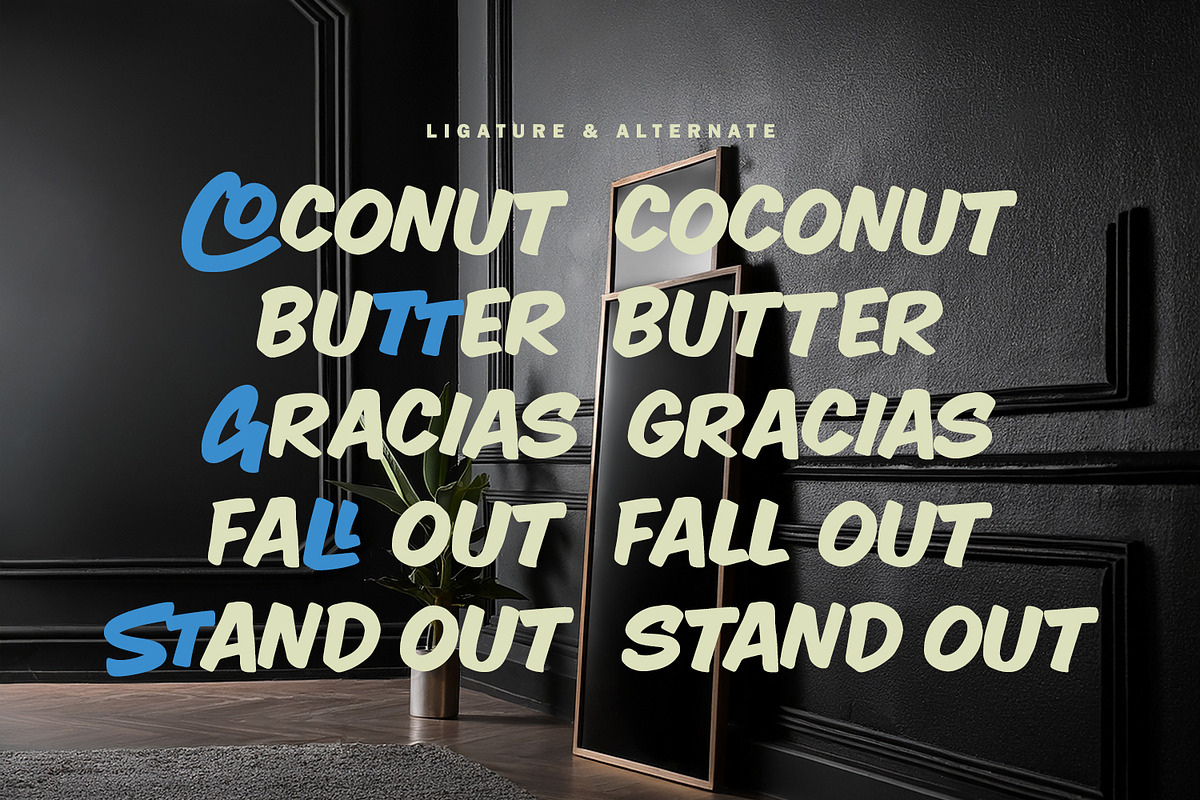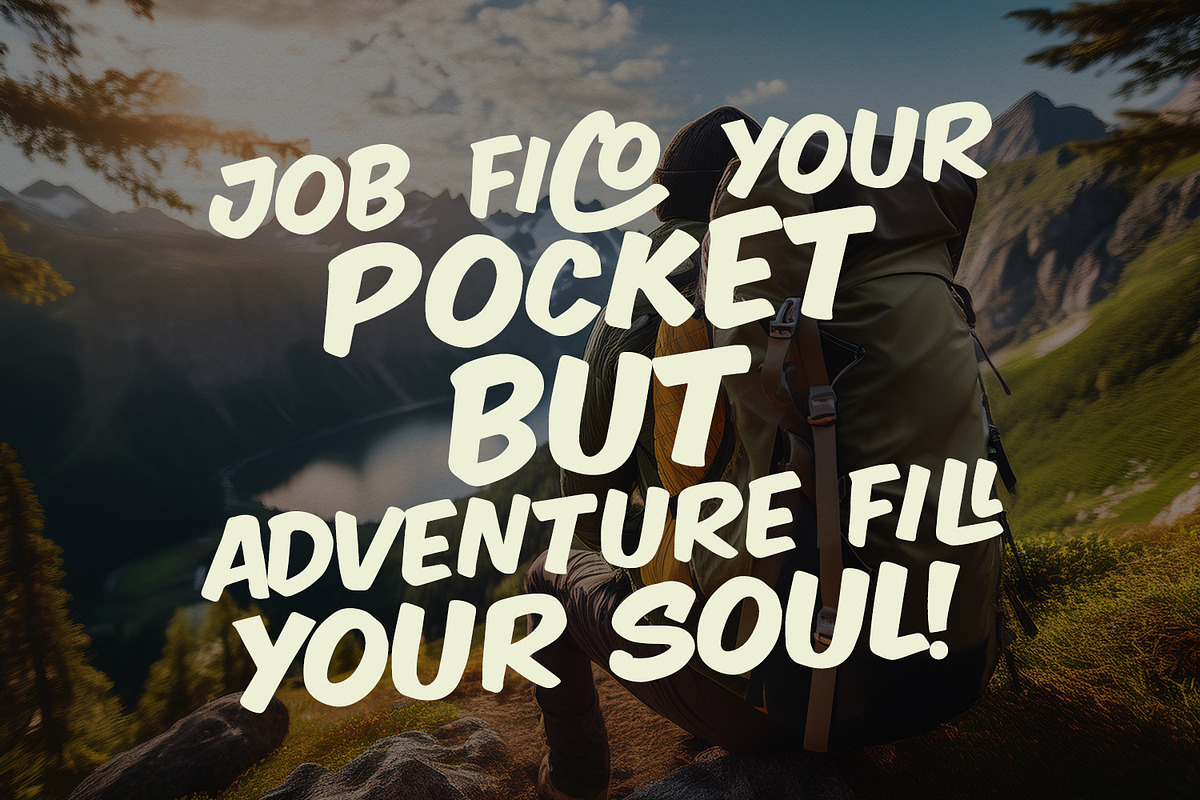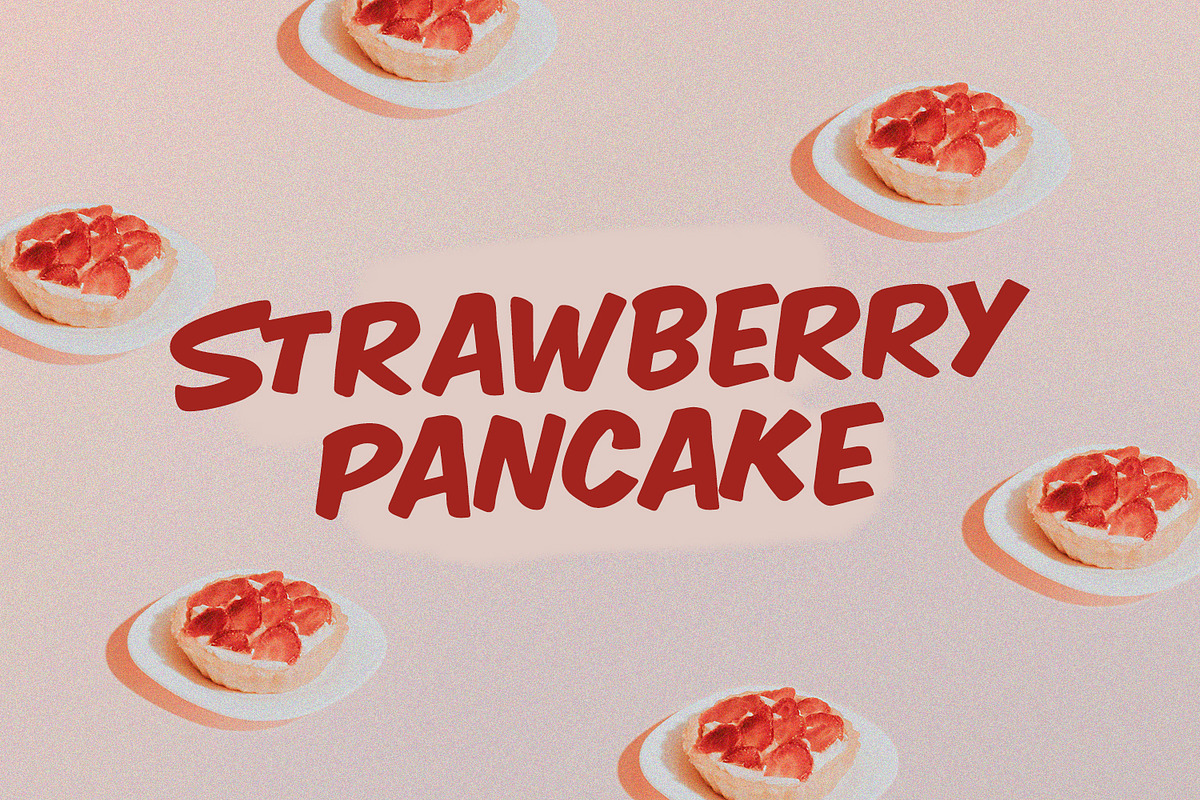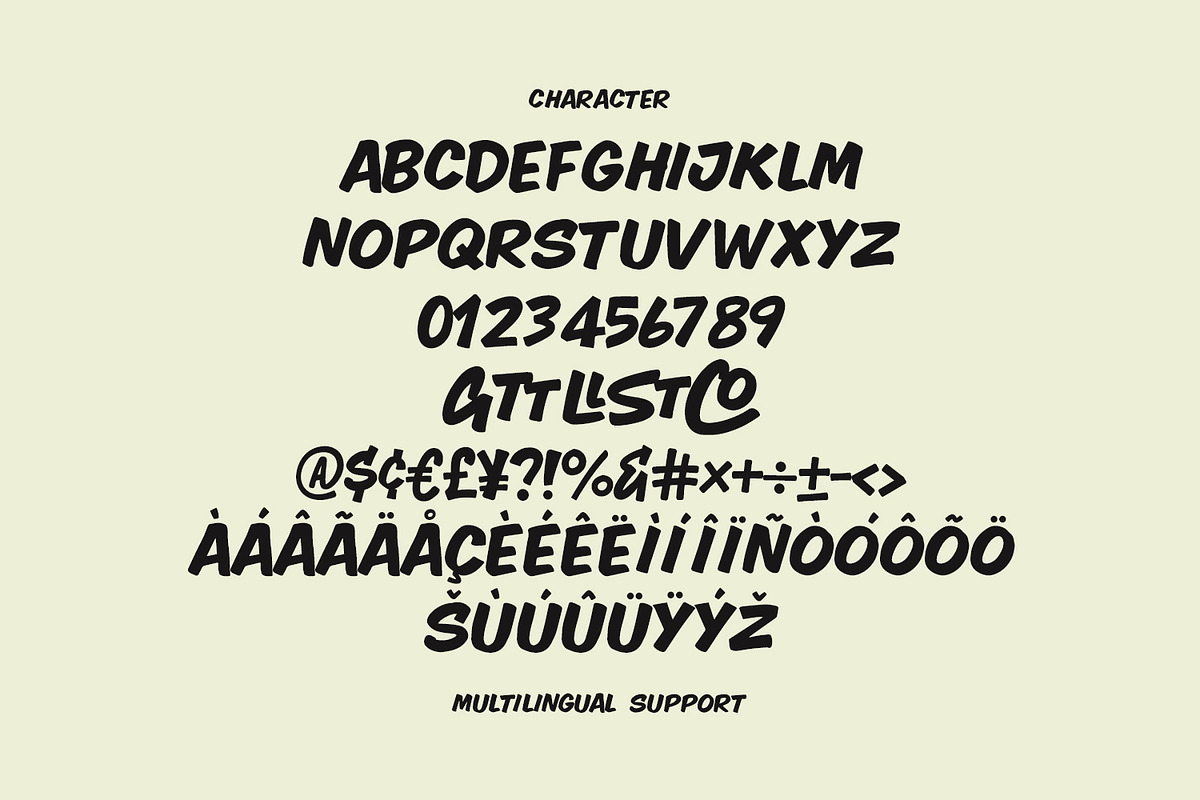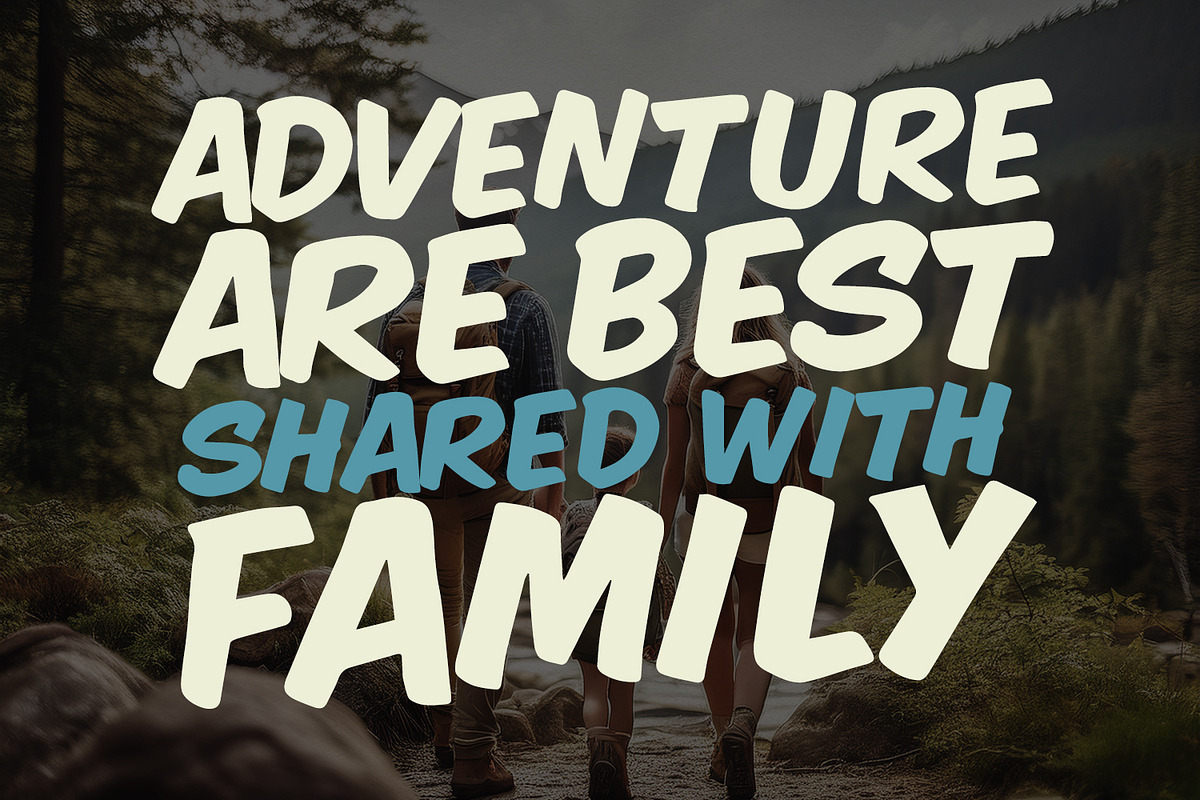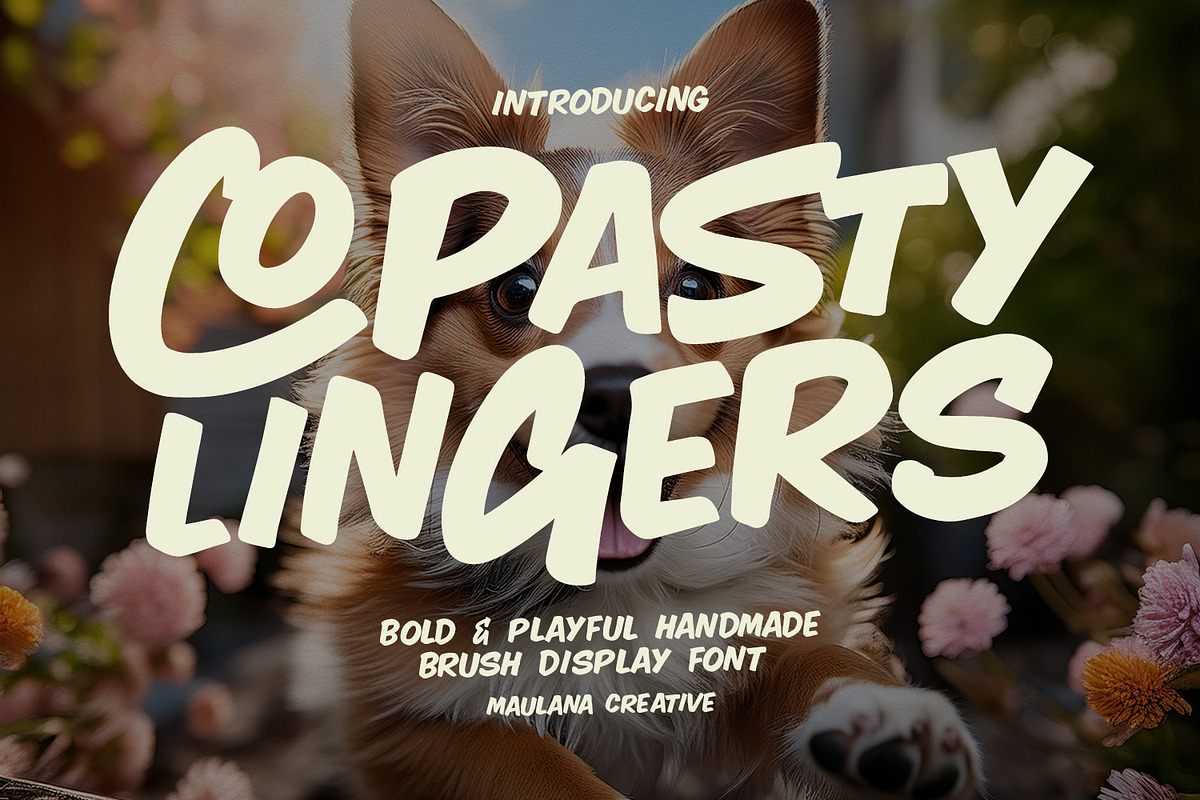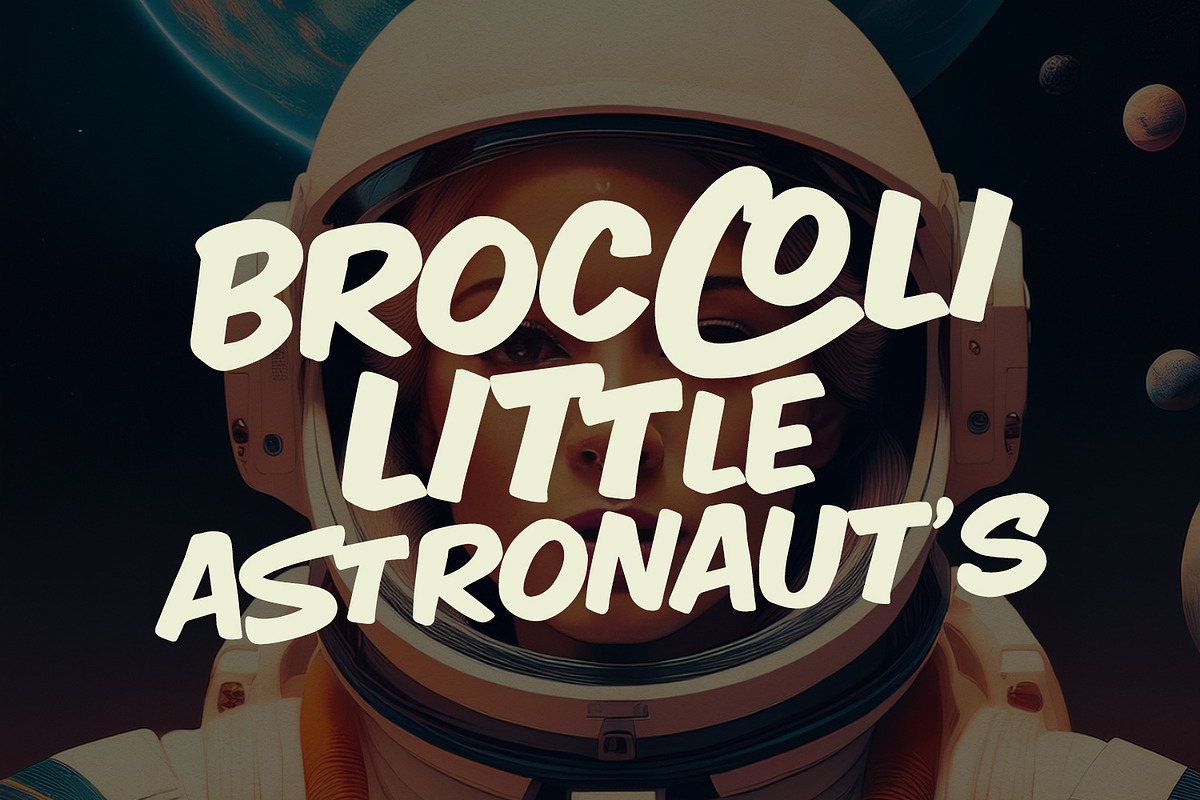
Copasty Lingers Bold Playful Brush
Unleash your creativity with Copasty Lingers, a premium handmade display font designed to give your projects a bold, energetic, and authentic touch. Crafted with natural brush strokes, this font captures a perfect balance between casual street art and professional graphic design.
Whether you are working on branding, eye-catching posters, trendy apparel, or social media content, Copasty Lingers provides a thick, impactful silhouette that ensures your message is never missed.
- Unique Character Shapes: Hand-drawn for an organic, non-robotic feel.
- High Readability: Despite its expressive style, it remains easy to read.
- Multi-purpose Use: Perfect for logotypes, merchandise, packaging, advertising, and headlines.
- Ligatures and Alternates